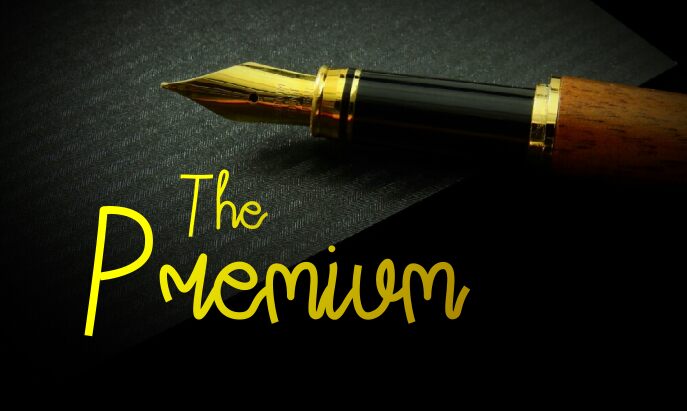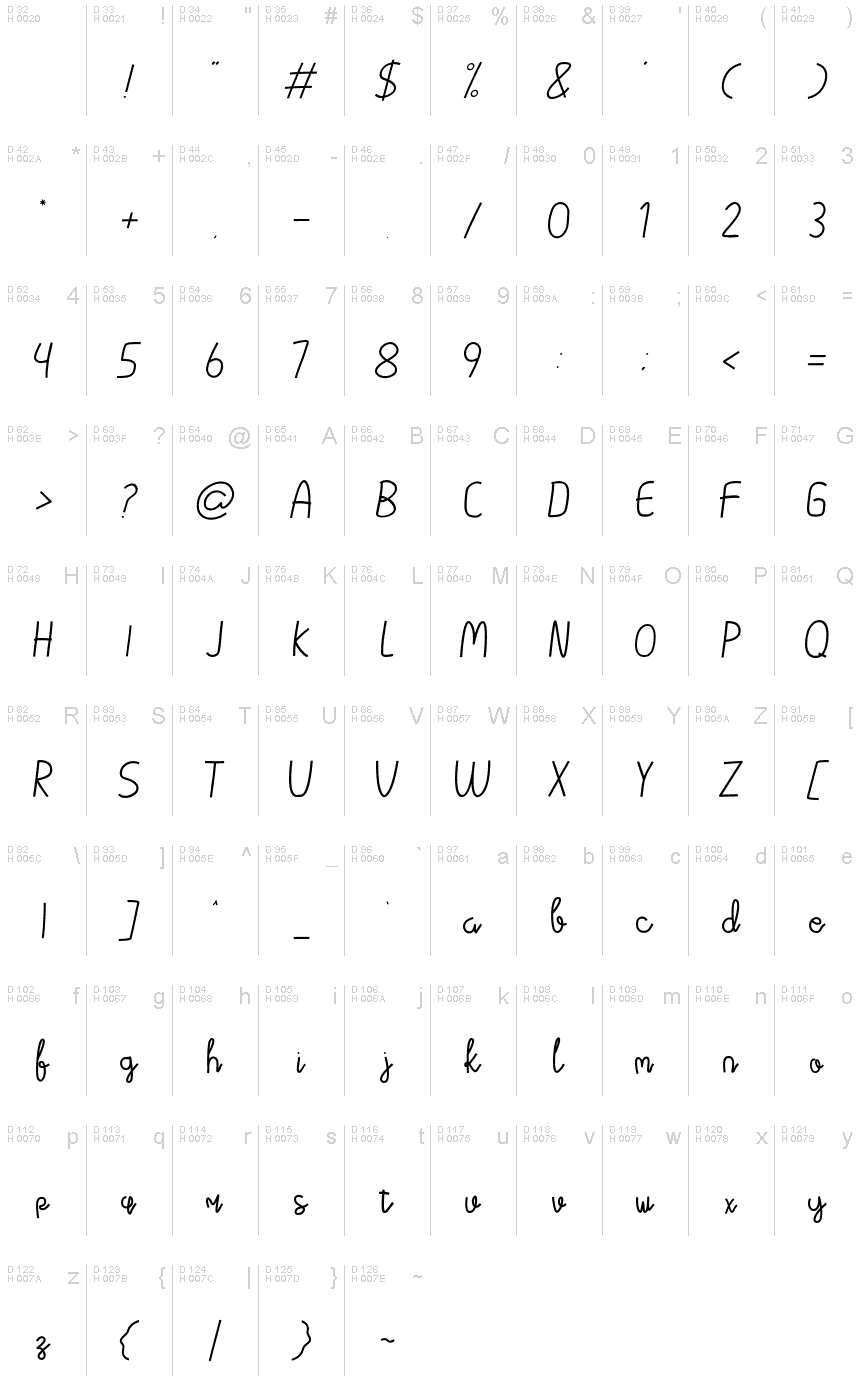
Tamasya
Tamasya font is a casual handwritten font designed by Cocoriscranjy.
This font is suitable for lettering, invitation, or any your packaging product that need classy and stylish font. Enjoy it.